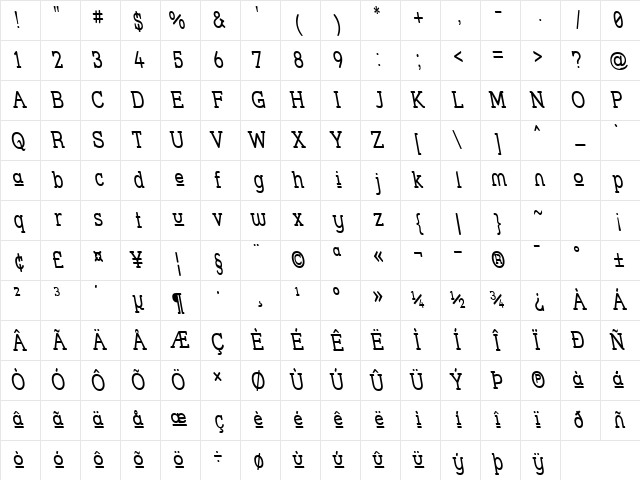
Street Slab Upper - Narrow Rev Regular Free Font
Street Slab Upper - Narrow Rev Regular
Design Context for Street Slab Upper - Narrow Rev
Street Slab Upper - Narrow Rev features prominent, blocky serifs that give it a confident, grounded presence - equally at home in editorial settings and bold branding work. Its narrow stance lets it pack a punch even in space-constrained designs.
Pro Tip: Use Street Slab Upper - Narrow Rev for headlines and subheadings where its slab serifs can make an impression. It also holds up well in mid-size body copy thanks to its sturdy construction.